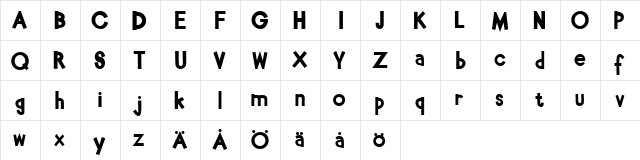
Babe Bamboo Regular
Design Context for Babe Bamboo Typeface
Babe Bamboo is a composed and adaptable typeface that performs quietly and consistently across a wide range of design contexts.
Pro Tip: Use Babe Bamboo in both headline and body roles to test its range before committing to a single application.